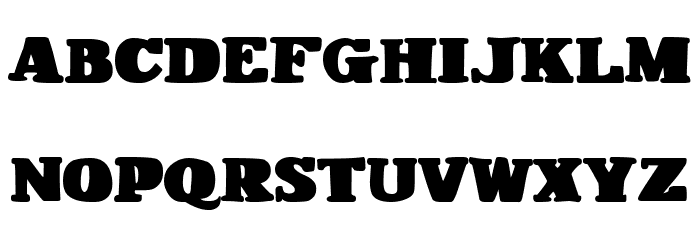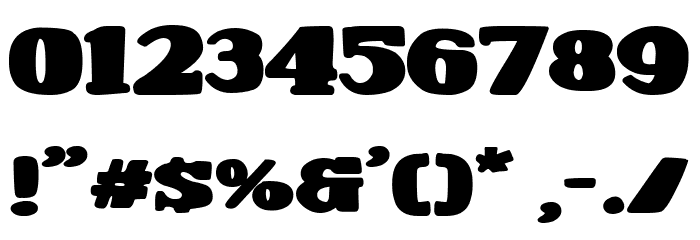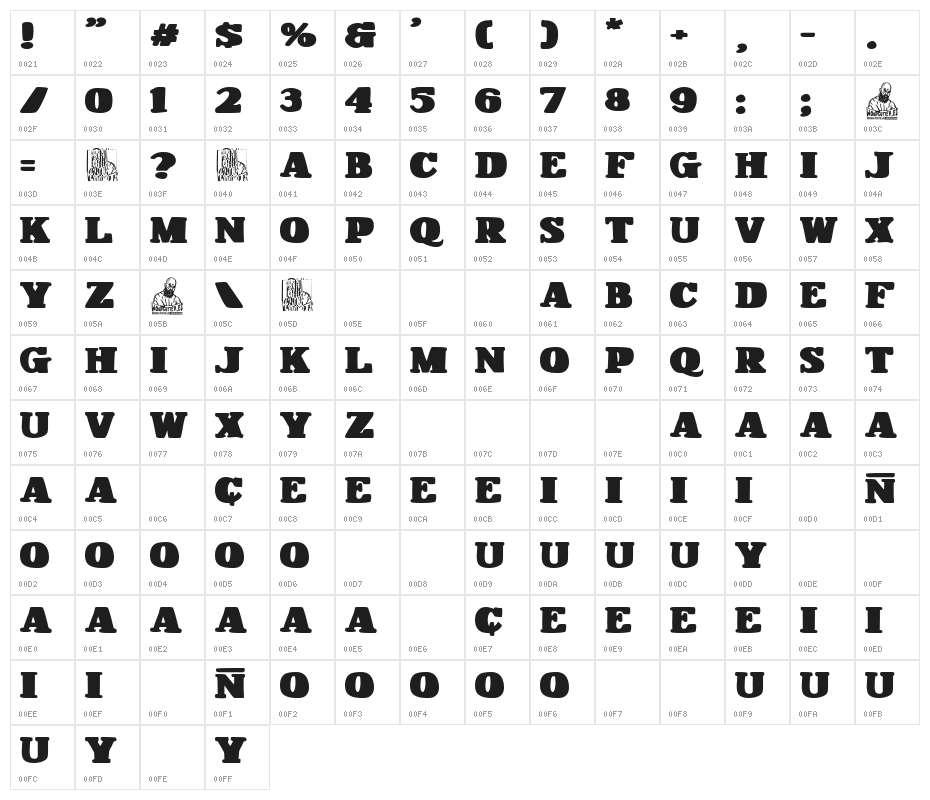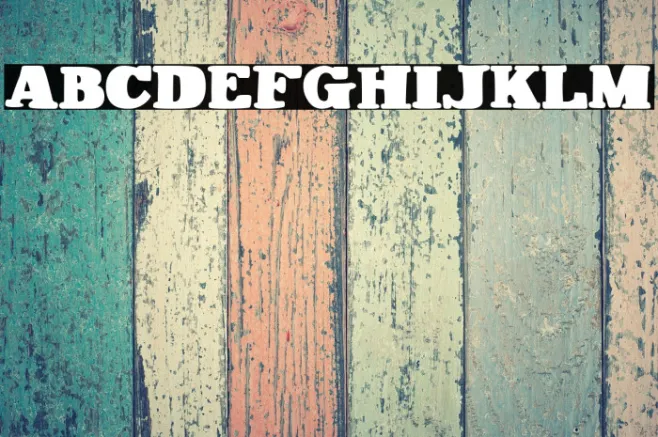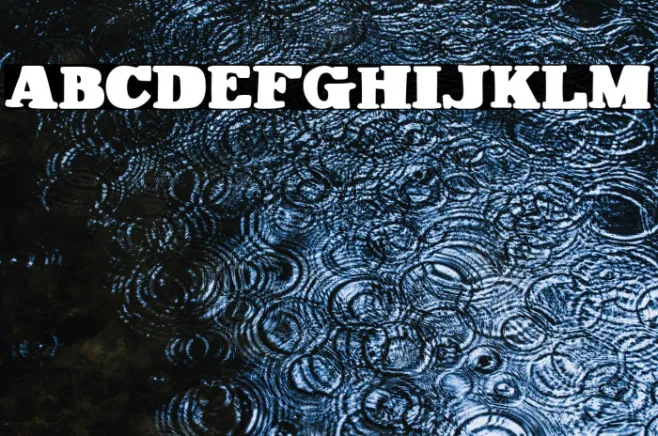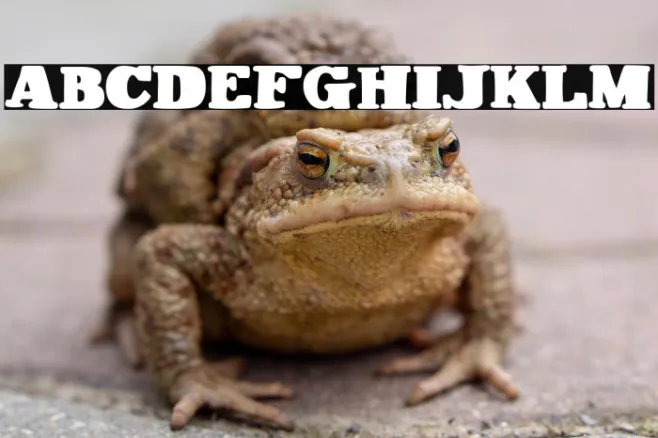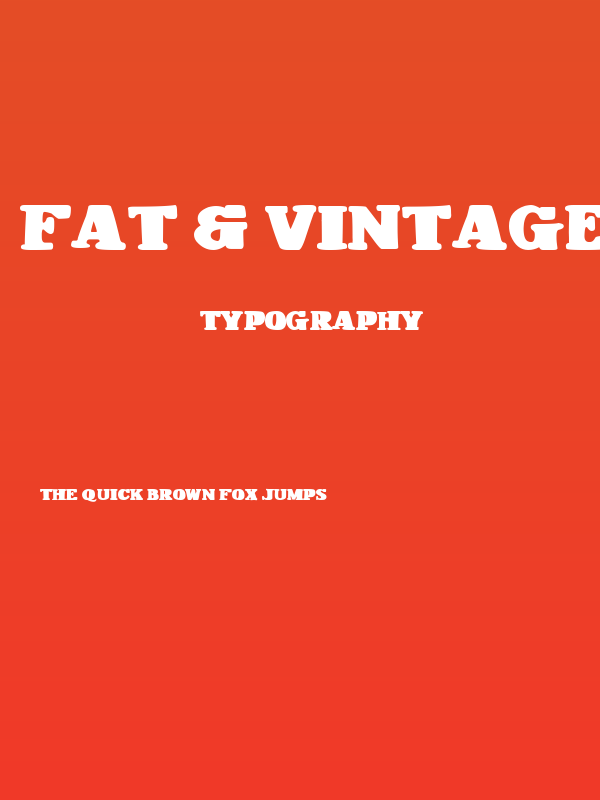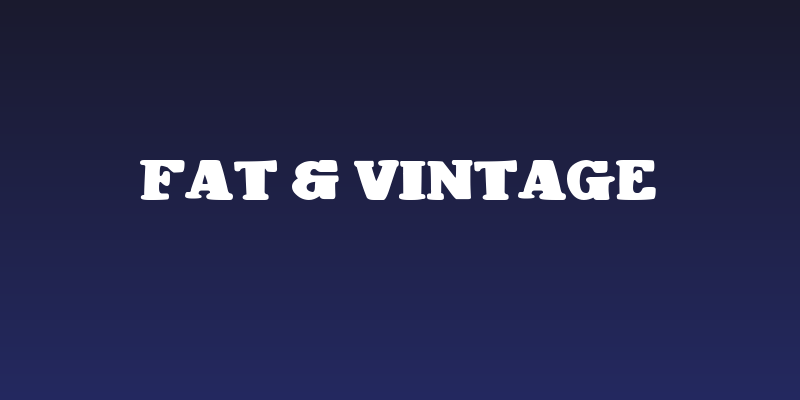
Fat & Vintage Font
This font features a bold and robust design with thick, heavy strokes that give it a strong presence. The characters are wide and have a vintage flair, reminiscent of old-fashioned signage or posters. The serifs are pronounced, adding to the classic feel, while the overall weight of the letters ensures they stand out prominently. The numbers and special characters maintain the same bold style, ensuring consistency across all glyphs. This font's design is both eye-catching and nostalgic, making it suitable for projects that require a touch of retro charm.
A bold, vintage-style serif font with thick strokes and a classic feel.
- Font: Fat & Vintage
- Proposed Projects: Ideal for vintage-themed posters, retro branding, signage, and headlines that need a strong visual impact.
- Category: Slab Serif
- Overall Style: Vintage